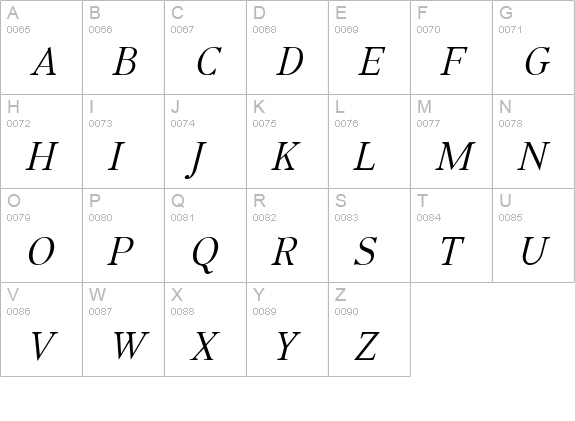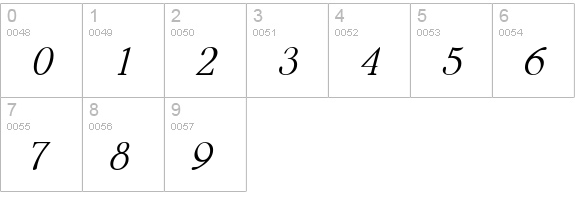
Aabced Italic Font Details
Aabced Italic is a distinctive, italic variant in the Aabced typeface family \xE2\x80\x94 well suited to design and typography projects.
Introducing Aabced Italic, a captivating and stylish font that effortlessly combines elegance with a touch of modernity. This exquisite typeface is perfect for those who seek to make a statement with their design projects. Aabced Italic exudes a sense of sophistication and refinement, making it ideal for luxurious branding, high-end logos, and editorial designs. With its sleek and slanted letterforms, Aabced Italic adds a unique flair to any creative endeavor. Its subtle curves and graceful strokes create a harmonious balance that catches the eye and leaves a lasting impression. This font effortlessly captures attention, ensuring that your message is conveyed with utmost clarity and impact. But what truly sets Aabced Italic apart is its versatility. Whether you're working on a fashion magazine spread, a wedding invitation, or a professional presentation, this font adapts seamlessly to any context. Its inherent charm and versatility make it a go-to choice for designers across various industries. And the best part? Aabced Italic is freely available to download at FontsMarket.com. Yes, you heard it right! This exquisite font can be yours at no cost, allowing you to elevate your design projects without breaking the bank. Embrace the freedom of creativity and let Aabced Italic transform your work into a masterpiece. So, what are you waiting for? Unleash your imagination and download Aabced Italic today from FontsMarket.com. Elevate your designs with a font that combines elegance, modernity, and the best part - it's absolutely free!